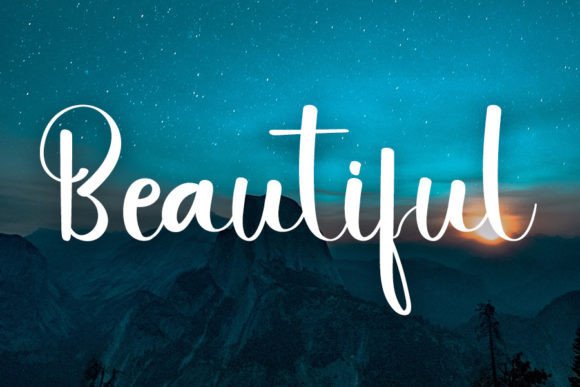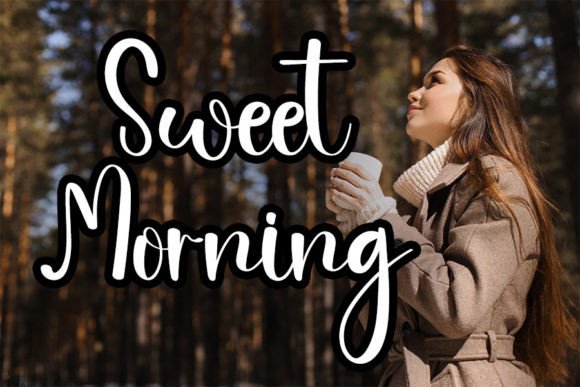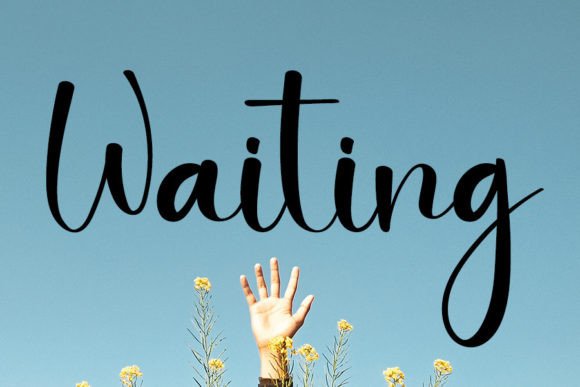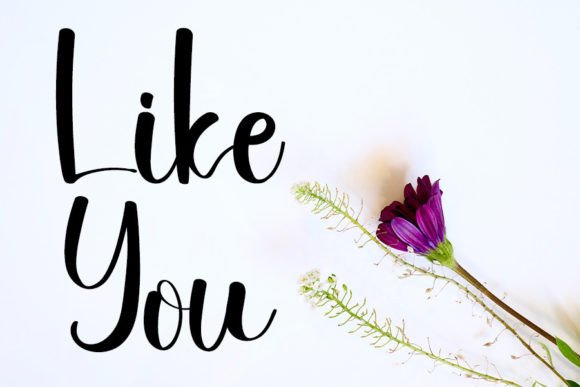
Mountain Range Font
About Mountain Range Font
Mountain Range is a neat and beautiful handwritten font that exudes elegance and timelessness. With its clean and well-crafted letterforms, it is the perfect choice for a wide range of projects. Get ready to be captivated by its distinct style and let it inspire you to create stunning designs.
No matter the project, Mountain Range adds a touch of sophistication and beauty. Whether you’re working on invitations, greeting cards, logos, branding materials, or any other design, this font will elevate your creations to new heights.
When it comes to invitations, Mountain Range brings an air of elegance and charm. Its timeless style creates a sense of wonder and adventure, making it ideal for wedding invitations, party announcements, or any special event. The clean and beautiful lettering of Mountain Range sets the tone for a memorable and enchanting experience.
Greeting cards designed with Mountain Range become truly special and heartfelt. The font’s elegant touch adds a sense of warmth and sincerity to your messages, making them more meaningful. Whether you’re expressing gratitude, sending well wishes, or celebrating a milestone, Mountain Range enhances the sentiment with its distinct style and elegance.
Logos and branding materials benefit from Mountain Range’s neat and timeless look. The font’s clean and well-defined letterforms create a professional and memorable impression for your brand identity. Whether you’re designing a logo, business cards, packaging, or website, Mountain Range adds a touch of sophistication and uniqueness, helping your brand make a lasting impact.
Quotes and typography designs come alive with Mountain Range’s distinct style. The font’s timeless and elegant lettering adds visual interest and impact to your quotes, mantras, and motivational messages. Whether you’re creating social media graphics, posters, or artwork, Mountain Range enhances the overall design and captivates the audience with its clean and beautiful appearance.
In summary, Mountain Range is a neat and beautiful handwritten font that combines elegance with timelessness. Its distinct style and charm make it perfect for a variety of projects, including invitations, greeting cards, logos, branding materials, quotes, and more. Fall in love with Mountain Range’s unique appeal and let it inspire you to create spectacular designs that leave a lasting impression.